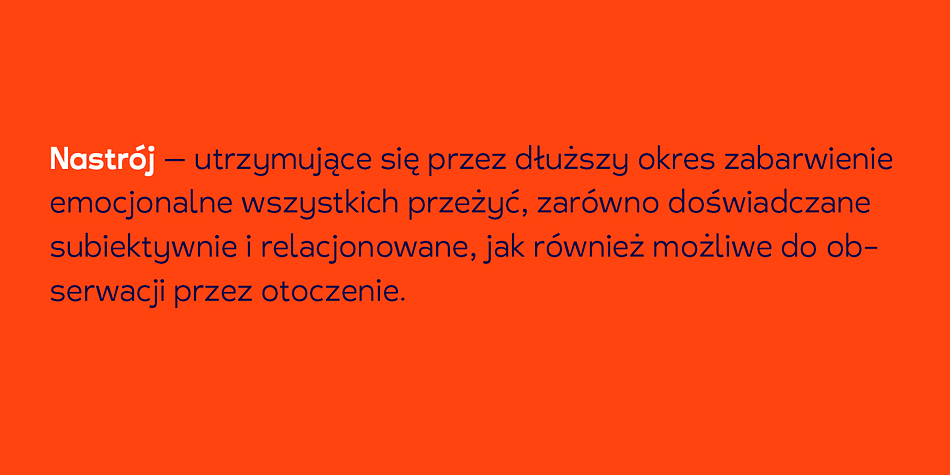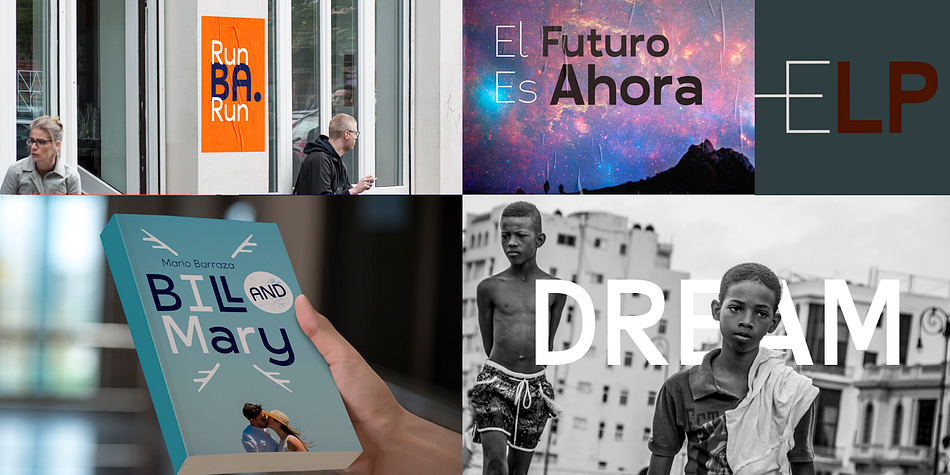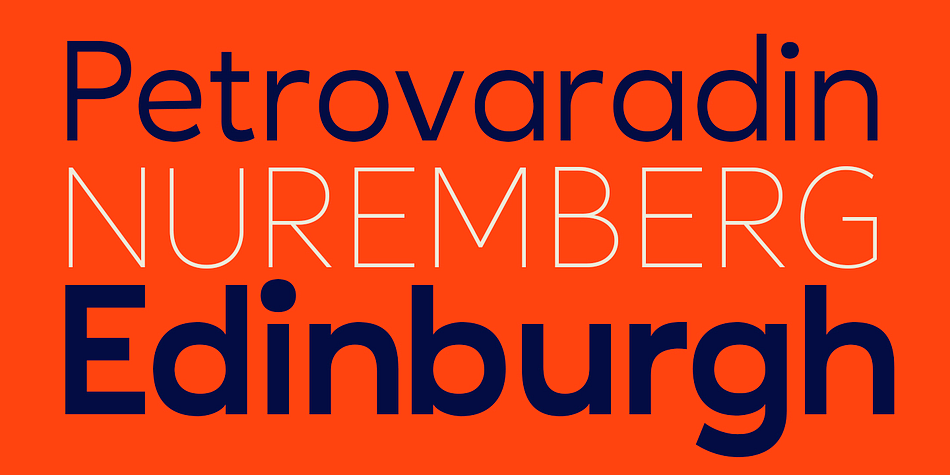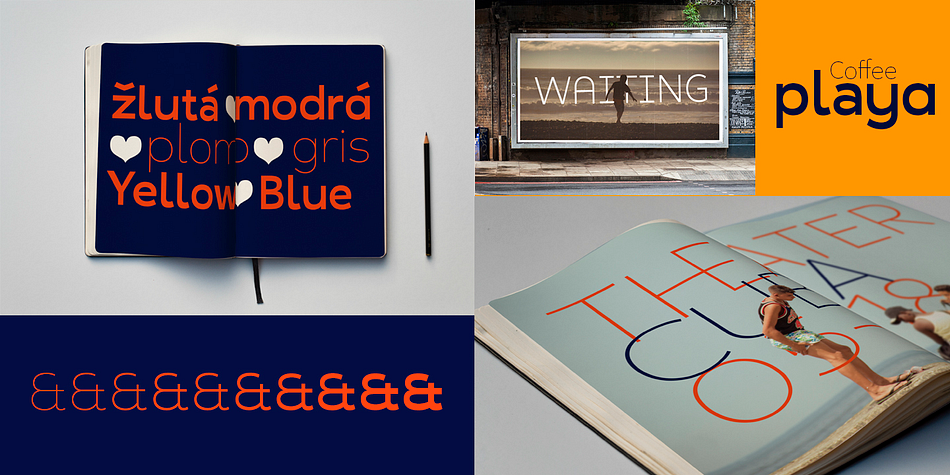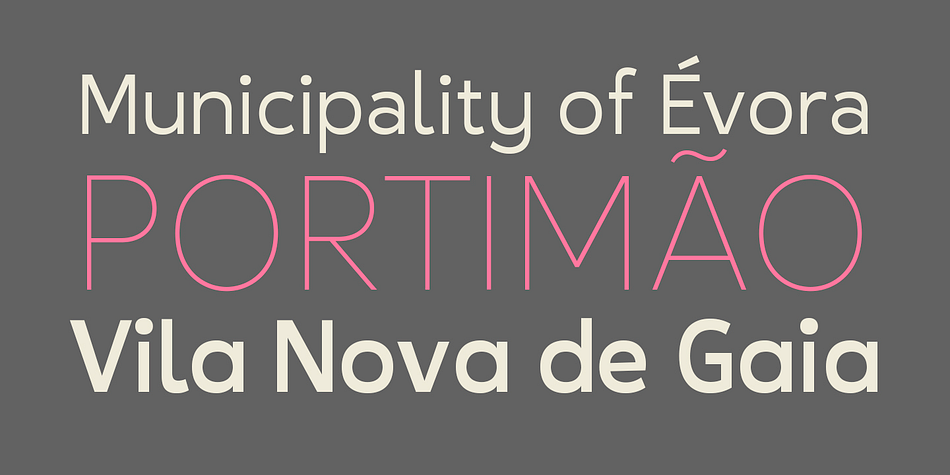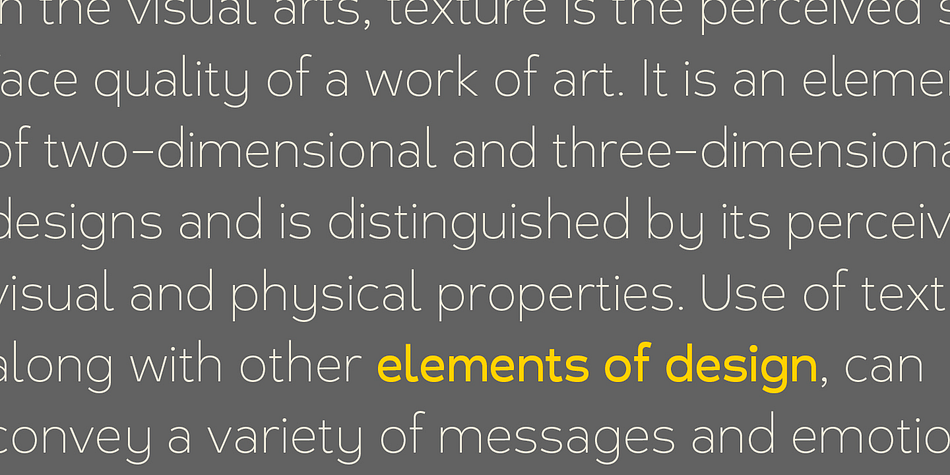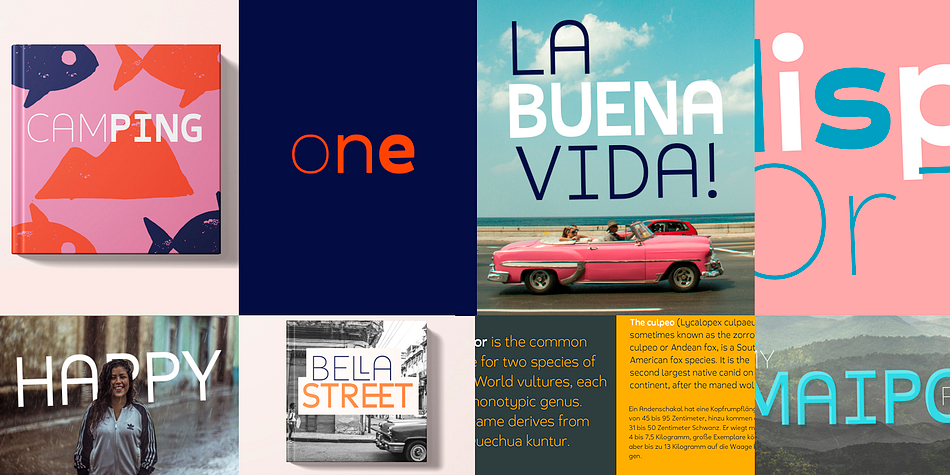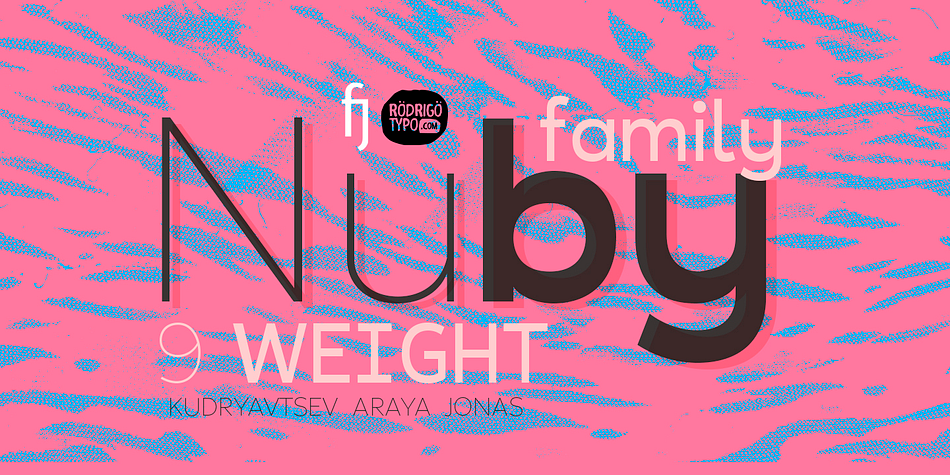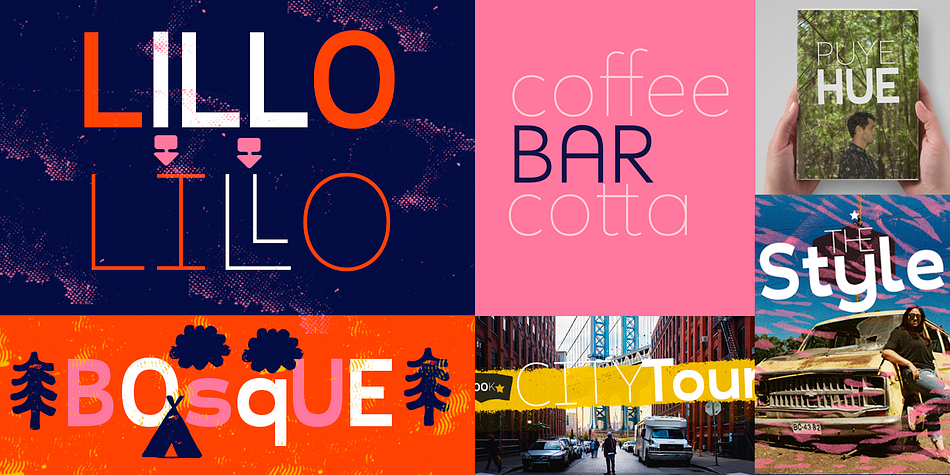
Designed by Franco Hernández, Andrey Kudryavtsev and Rodrigo Araya Salas, Nuby is a sans serif font family. This typeface has nine styles and was published by Rodrigo Typo.
A Sans Serif typeface, which contains 9 weight from Thin to the Black. It is a perfect typeface for use in short texts, versatile and with Alternatives